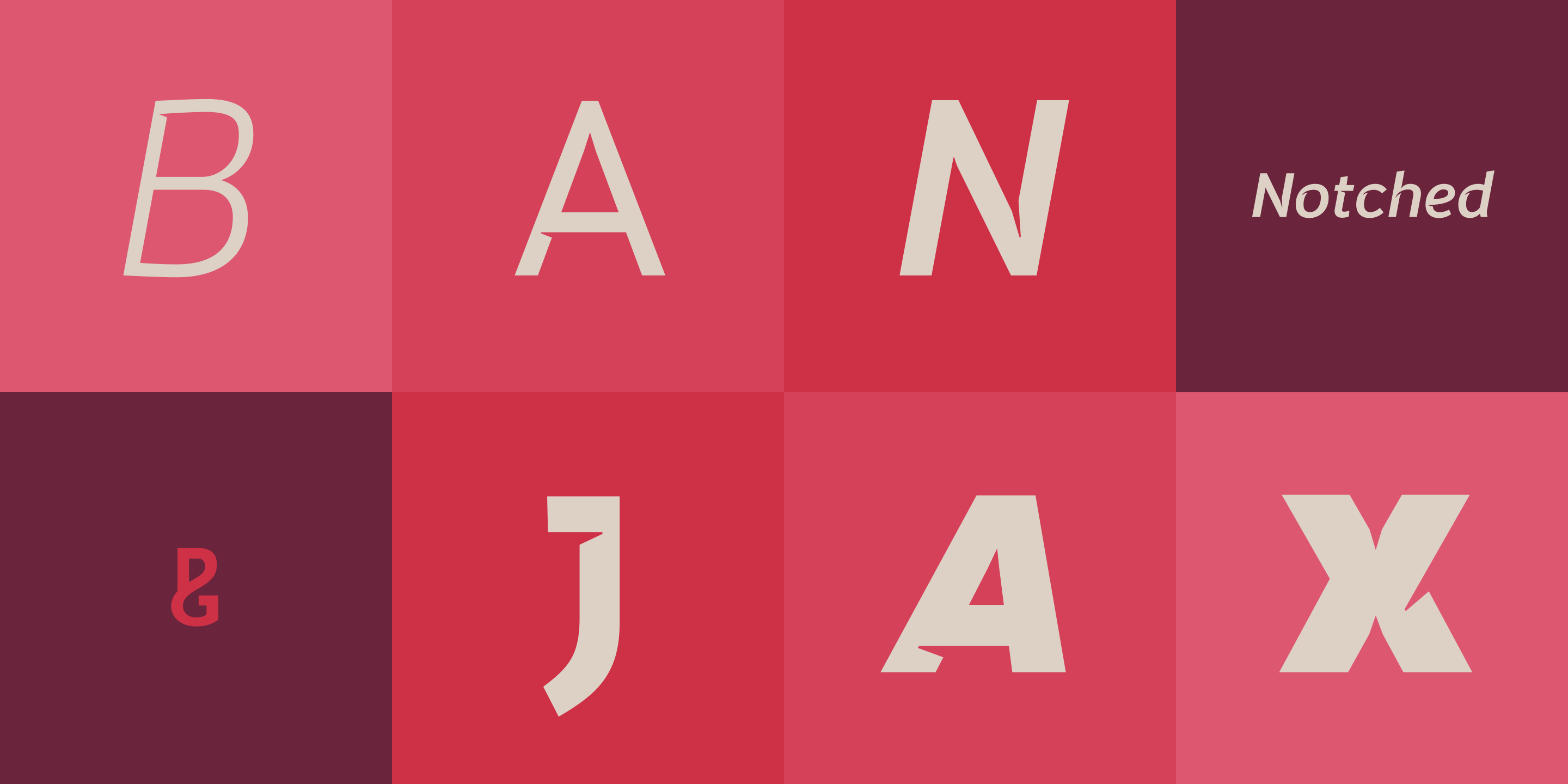
Banjax Notched Font is perfect for military-inspired designs, tactical gear branding, adventure sports logos, action movie titles, gaming interfaces, industrial signage, extreme sports events, and rugged outdoor equipment packaging.
What makes Banjax Notched Font exciting is its bold, aggressive design that features distinctive notched details and angular letterforms. This powerful typeface combines military precision with contemporary edge, creating a commanding presence that instantly conveys strength, durability, and tactical sophistication for projects requiring a tough, no-nonsense aesthetic.
The Banjax Notched Font family includes regular and bold weights, plus stencil variations and tactical-inspired alternate characters that enhance the military aesthetic with authentic battlefield-ready styling and industrial elements.
This commanding typeface delivers exceptional impact and authoritative presence, making Banjax Notched Font Free Download an essential choice for designers working on high-intensity projects. The font's aggressive character makes it ideal for brands wanting to convey power and reliability in their communications. Military contractors and extreme sports companies particularly value its ability to communicate toughness and professional capability instantly. The precisely engineered letterforms ensure clarity across all applications, from tactical equipment labels to large-scale promotional graphics. Whether you're designing combat training materials or developing branding for adventure gear manufacturers, this font provides the perfect combination of military precision and contemporary design appeal. Creative professionals consistently choose this typeface for projects requiring that ideal balance of tactical authenticity and modern visual impact.